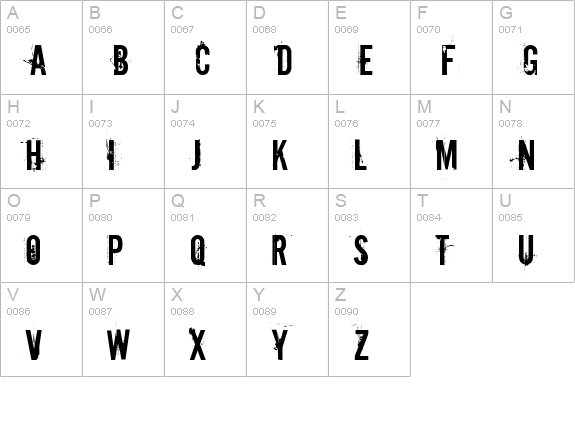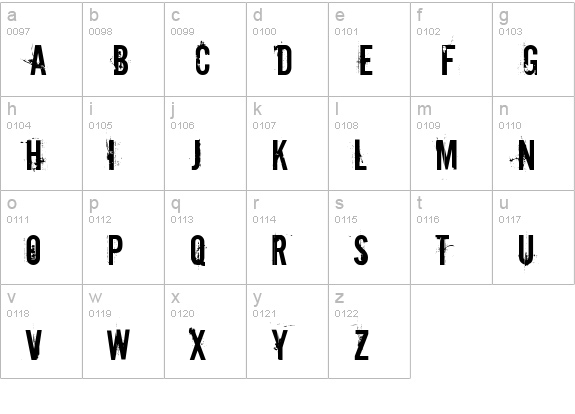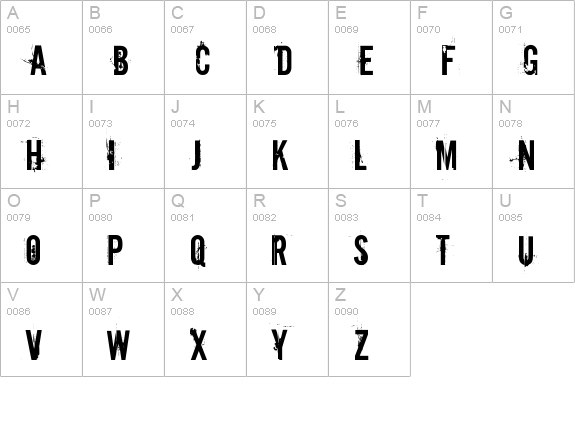
Downcome Font Details
Introducing Downcome font, a modern and stylish typeface that exudes elegance and sophistication. With its sleek lines and unique design, Downcome is perfect for adding a touch of class to your projects, whether it be branding, advertising, or editorial design. What sets Downcome font apart is not only its aesthetic appeal but also its versatility. It can be used for a wide range of design purposes, from logos to headlines to body text, making it a valuable addition to any designer's toolkit. And the best part? Downcome font is available for free download at FontsMarket.com. So why wait? Elevate your designs with the timeless elegance of Downcome font today.